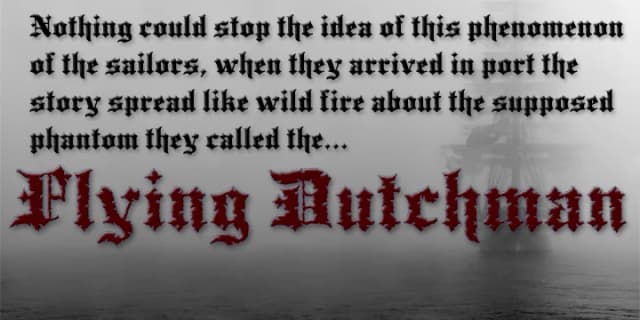
Picture yourself laying out a formal invitation suite, a gothic novel cover, or artisanal craft packaging that demands genuine historical character. Spanish Main, revived by FontMesa from the classic MacKeller Smiths & Jordan foundry face originally called Sloping Black, delivers authentic blackletter presence without compromise. The original foundries rarely displayed complete character sets in their specimen books, a limitation that made revival work challenging, so FontMesa invested the research to recover the full alphabet. You're getting a thoroughly documented, genuinely complete typeface with real historical roots.
What truly sets this version apart is the experimental Greek character set, quite rare for Old English style fonts. This opens practical possibilities for wine and craft spirits labels, formal wedding invitation collections, boutique luxury packaging, or historical document replicas where multilingual support matters. The typeface maintains solid readability even when set large, which matters because display sizes can make blackletter faces turn muddy and overwhelming if the spacing and weight distribution aren't quite right.
- medieval themes, band merch, and tattoo lettering
- a clean sans-serif for body text
Spanish Main Font is a blackletter font that shines as a display or heading face. Pair it with a clean serif or sans-serif font for body text β the contrast creates a clear hierarchy while the two styles stay balanced and easy to read.
Spanish Main Font
by FontMesa